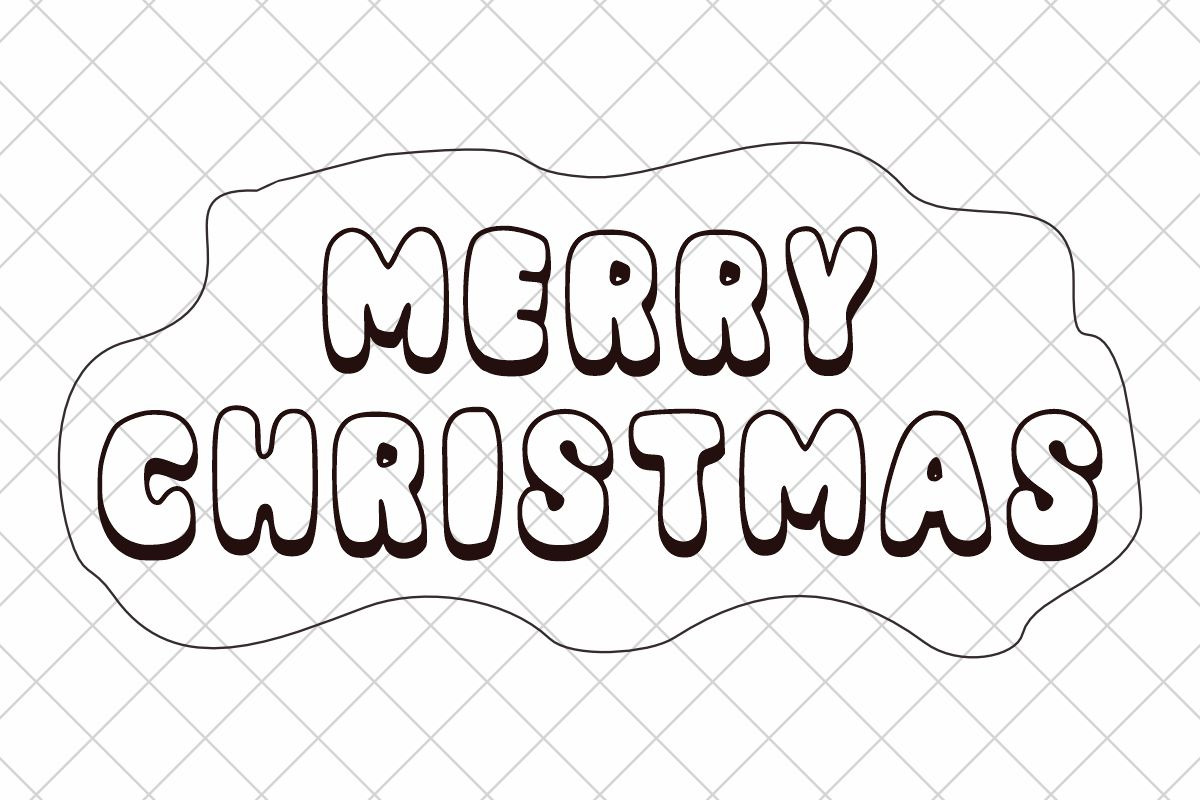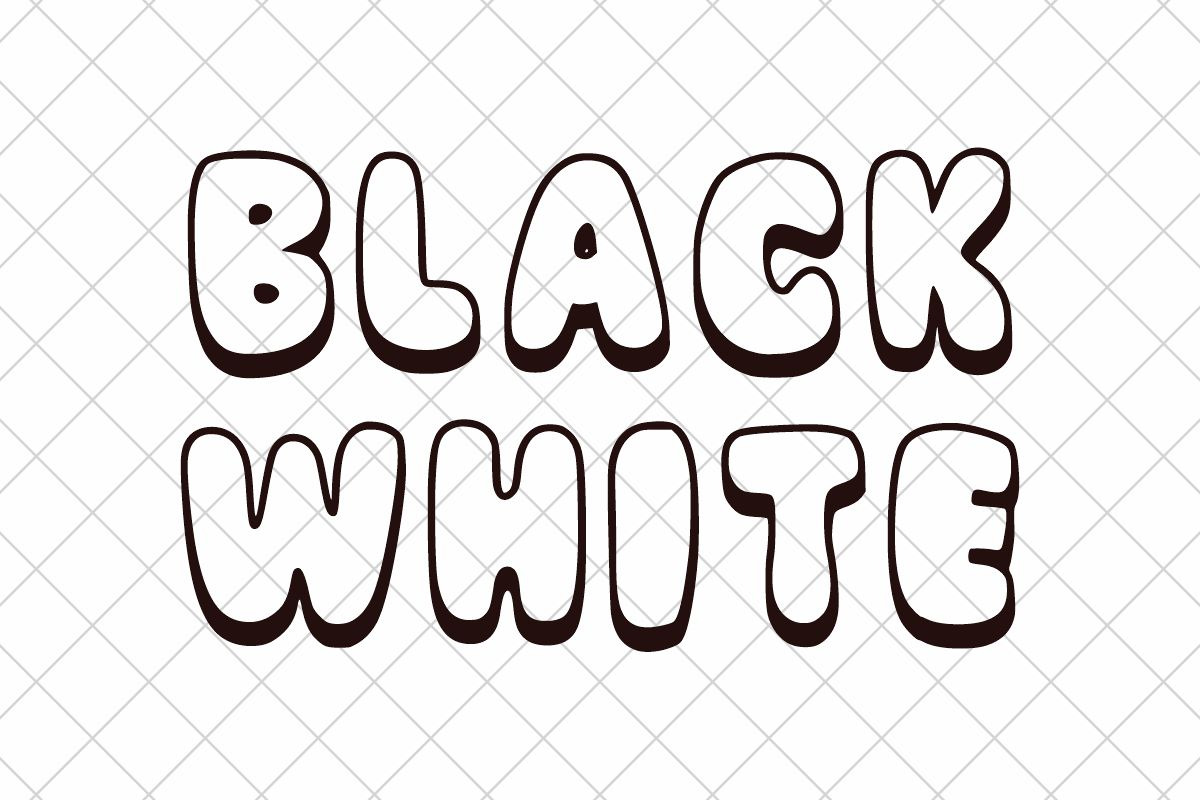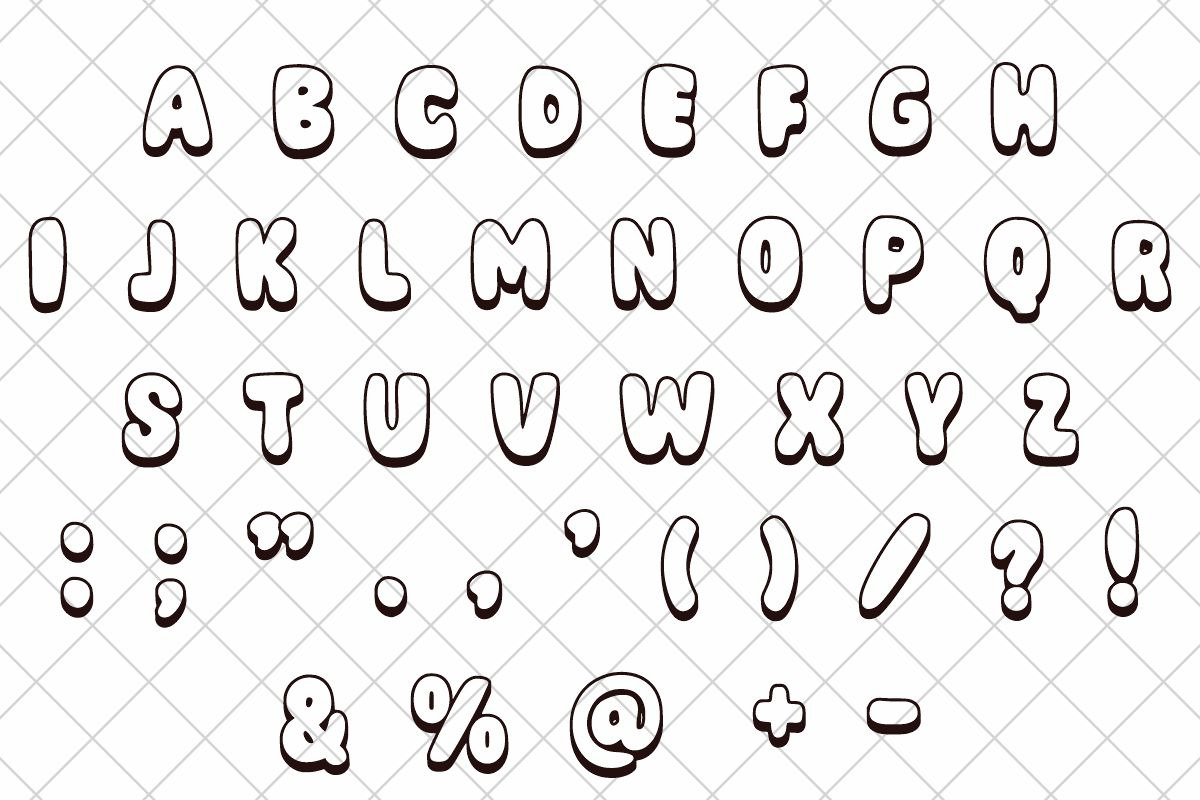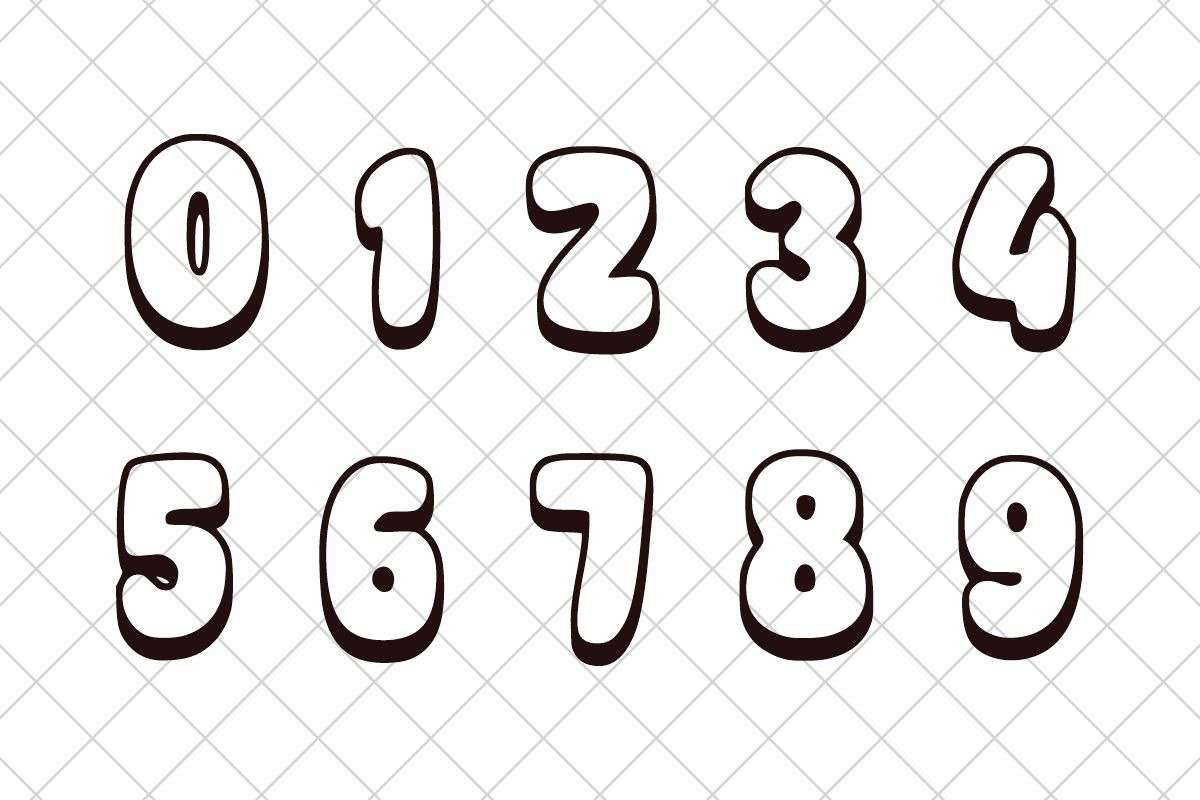
Candy Outline
Candy Outline is a playful and visually delightful outline font characterized by its thick, bubbly letterforms and whimsical shadow detailing. Designed entirely in uppercase with bold outlines, this font radiates a sweet, hand-drawn charm that evokes memories of candy wrappers and playful signage. Its exaggerated curves and soft, rounded edges make it perfect for projects that need a touch of fun and friendliness. The font maintains high legibility while delivering a unique personality that appeals to children and nostalgic adults alike.
This font is ideal for children's book titles, candy packaging, birthday invitations, posters, logo designs, product labels, coloring pages, toy branding, signage for sweet shops or cafés, and DIY crafts. Its aesthetic is youthful, joyful, and lighthearted—great for any project needing an upbeat and cheerful tone. The outlined nature of the font also makes it an excellent candidate for color-in or layered effects in design work.